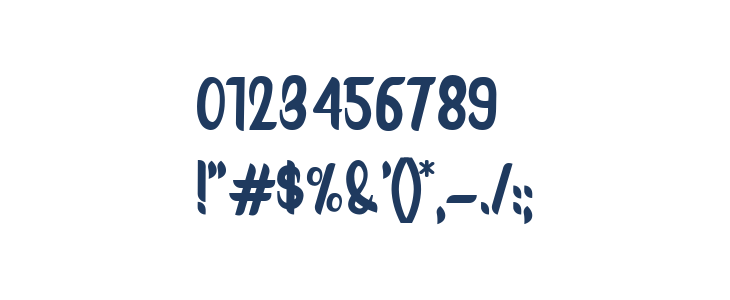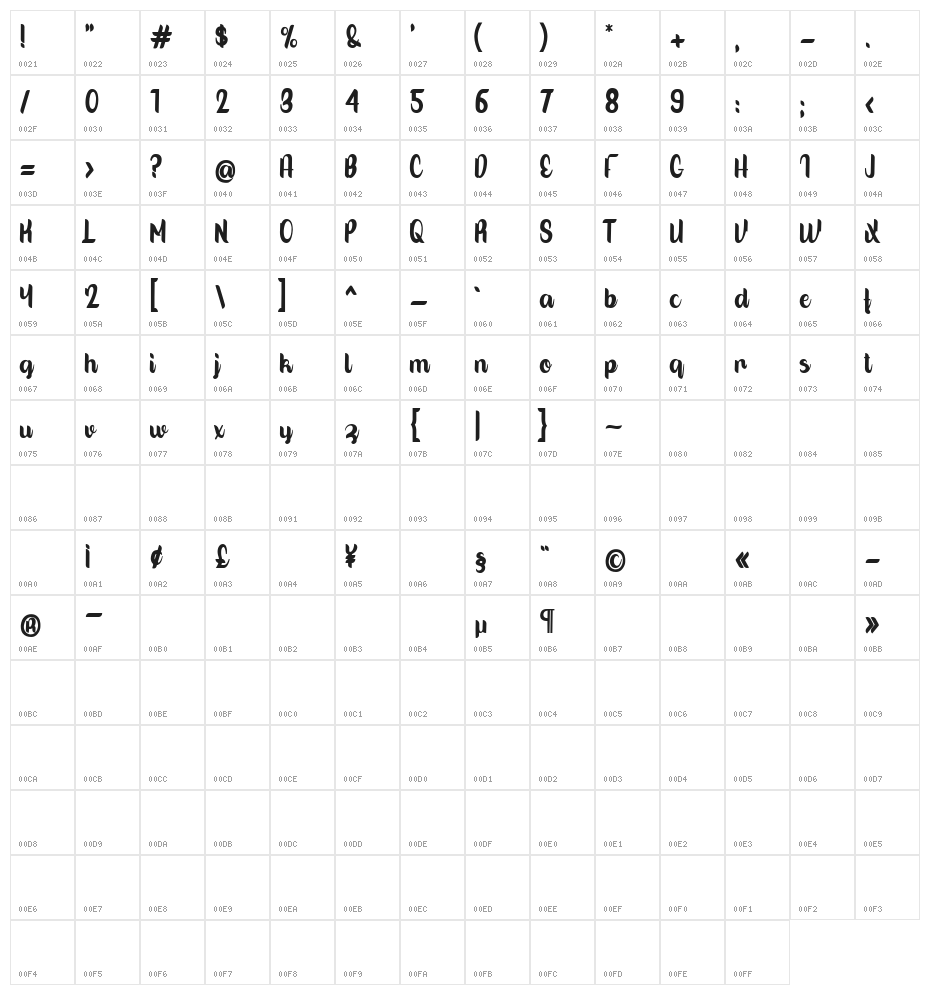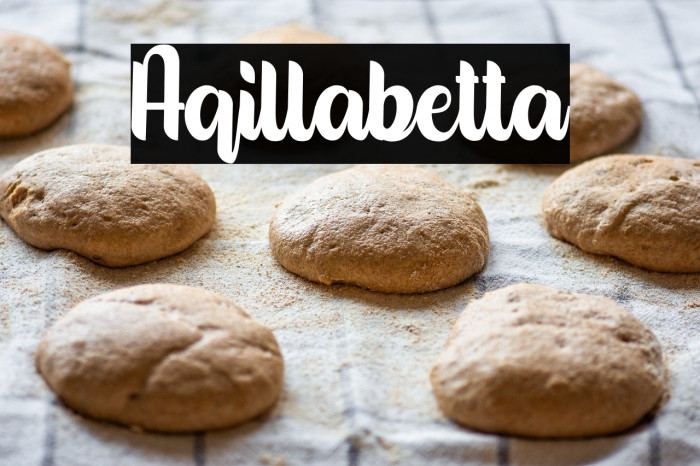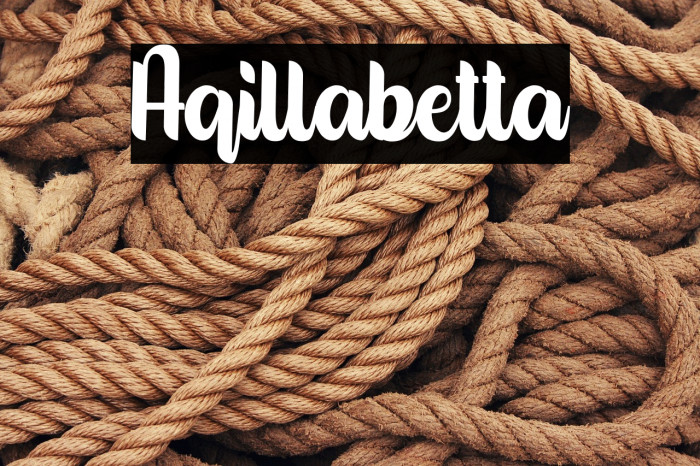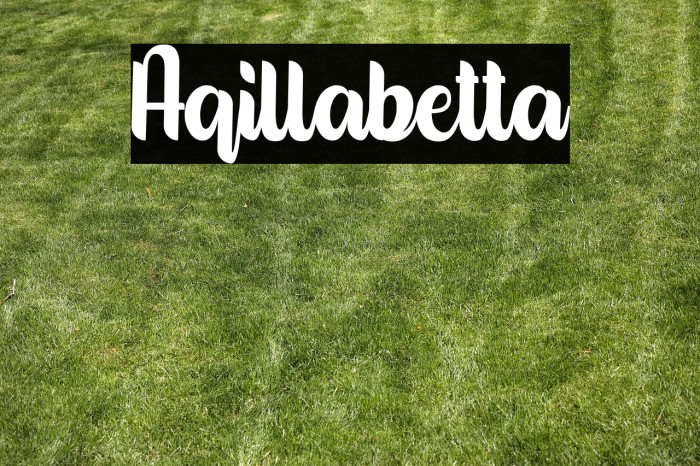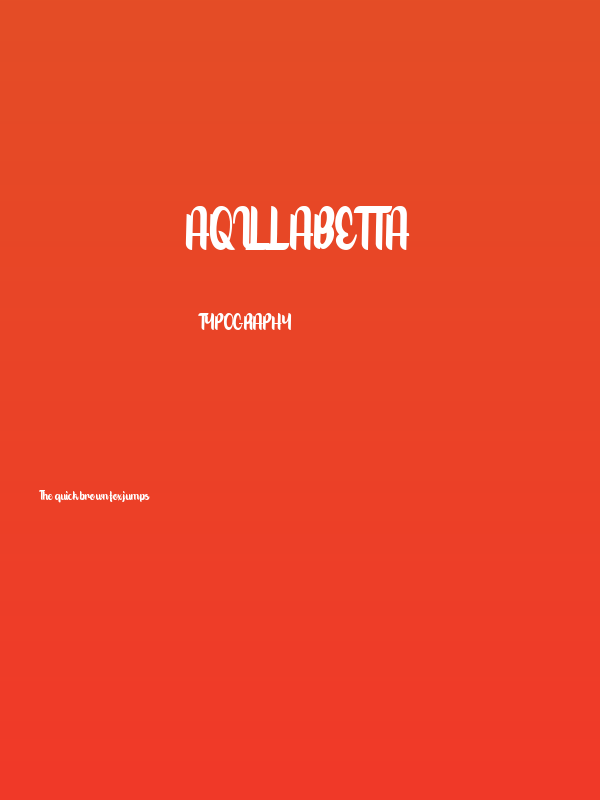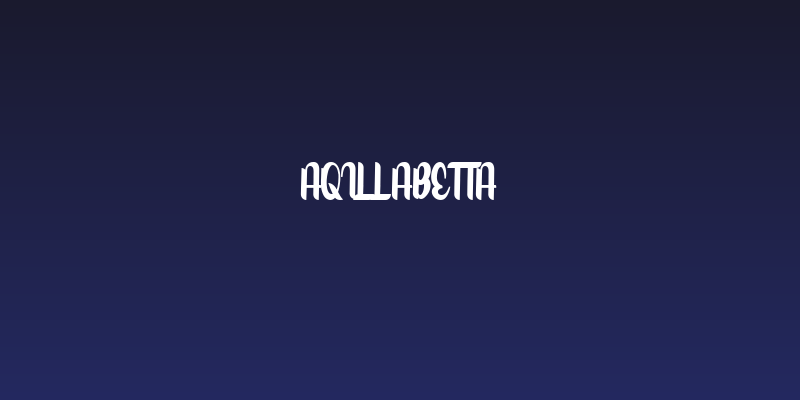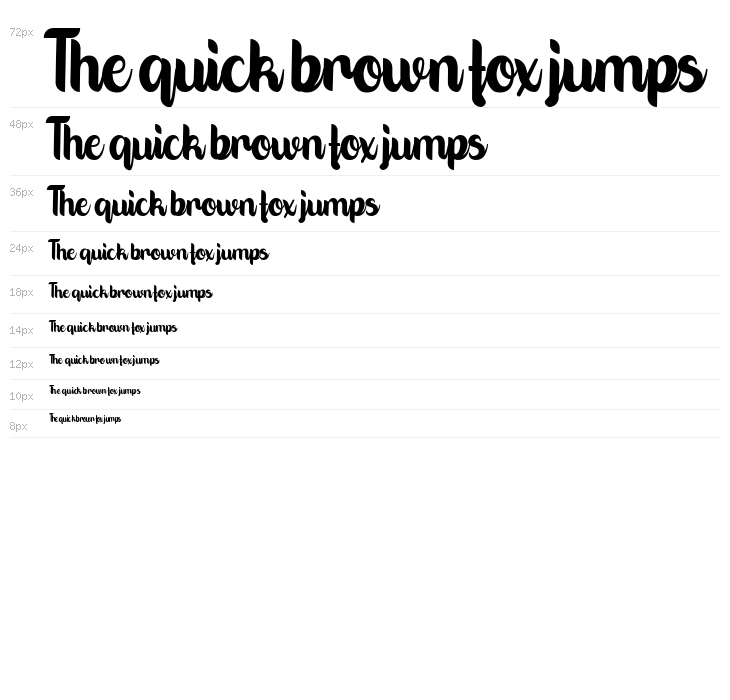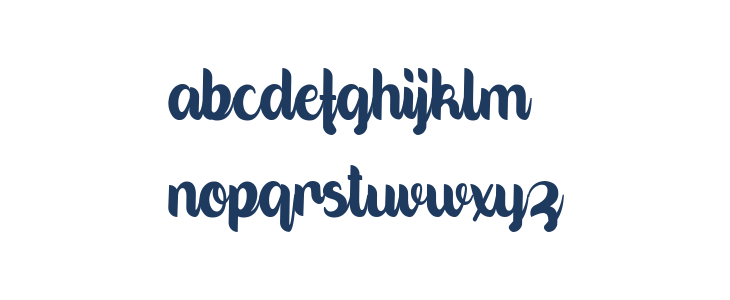
Aqillabetta Font
Aqillabetta Description
This font features a bold and expressive script style with a playful and dynamic appearance. The characters are interconnected, giving a sense of fluidity and movement. The uppercase letters are tall and slightly narrow, while the lowercase letters maintain a consistent flow with rounded edges. The numbers are bold and maintain the same playful style, ensuring readability. Special characters are creatively designed to match the overall aesthetic, making them suitable for decorative purposes. The font's thick strokes and smooth curves create a harmonious balance, making it ideal for projects that require a touch of elegance and creativity.
| Proposed Projects | Ideal for branding, invitations, greeting cards, and creative posters. |